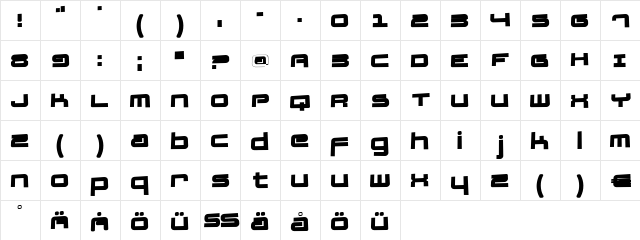
FatsansRotated Regular
Design Context for FatsansRotated Typeface
FatsansRotated offers clean, dependable letterforms without strong stylistic allegiance, making it a practical choice for designers who need flexibility.